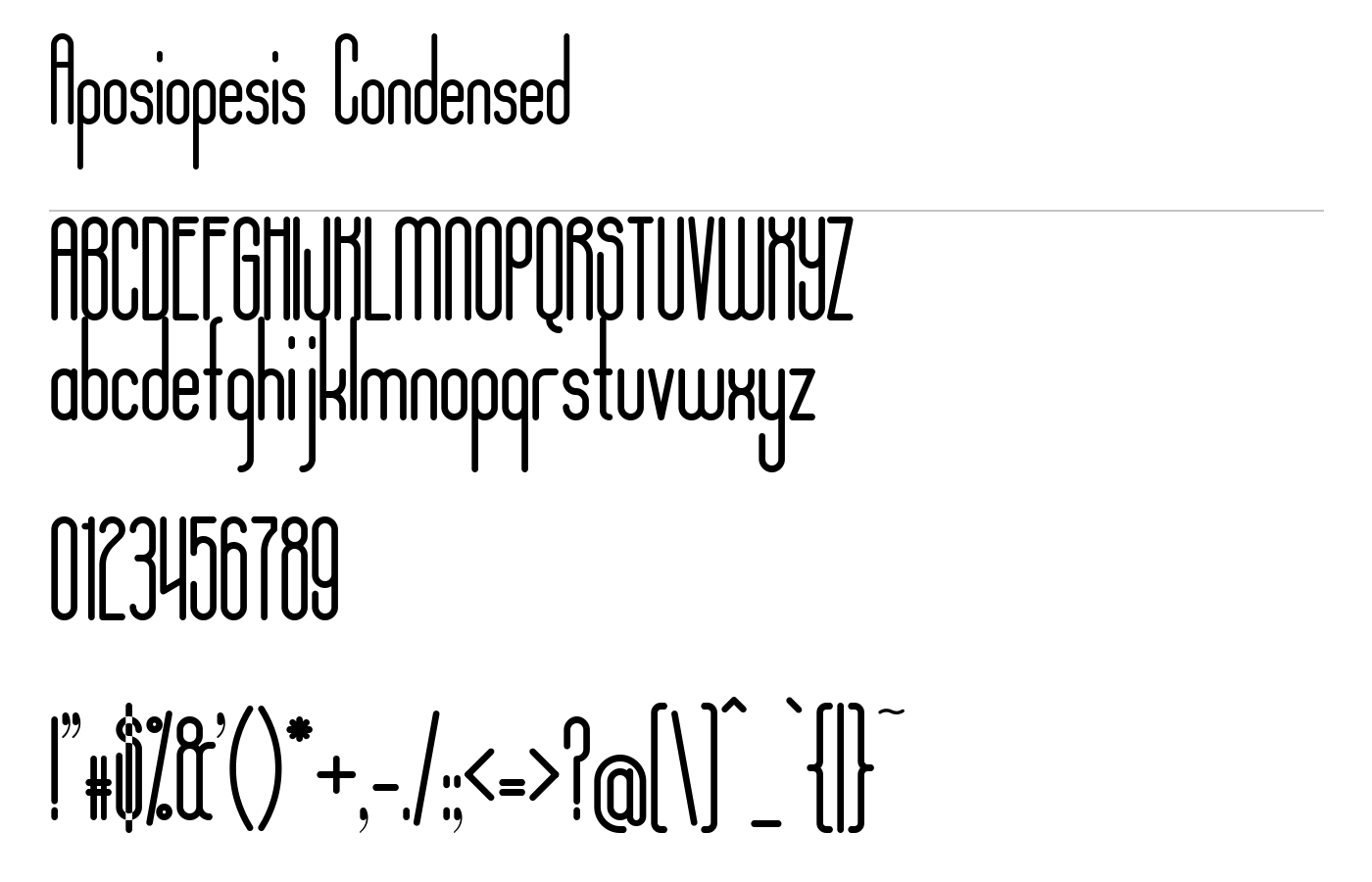
Aposiopesis Condensed is a sleek, narrow sans serif typeface with a modern, geometric style and uniform stroke weight. Its tall, elongated letterforms and clean, minimalistic design give it a contemporary and sophisticated feel, making it ideal for bold headlines, branding, and editorial use where space efficiency and a striking, elegant look are desired. This font conveys a sense of modernity and professionalism, perfect for fashion, tech, and luxury brands seeking a distinct and polished appearance.
Aposiopesis Condensed Font
About Aposiopesis Condensed Font